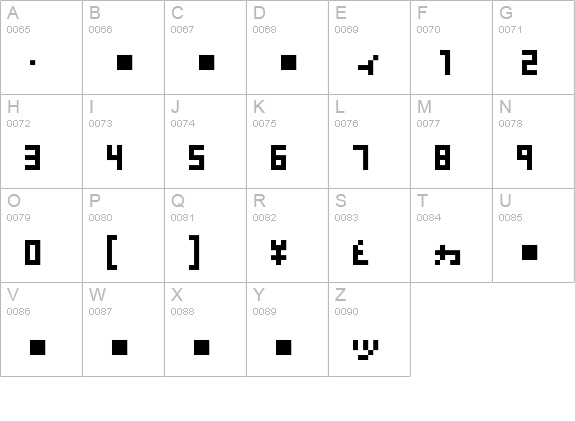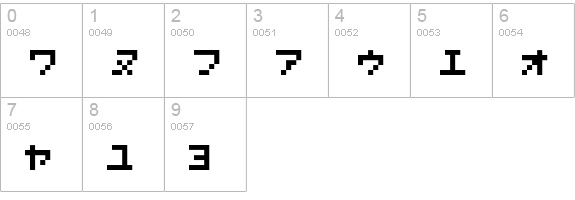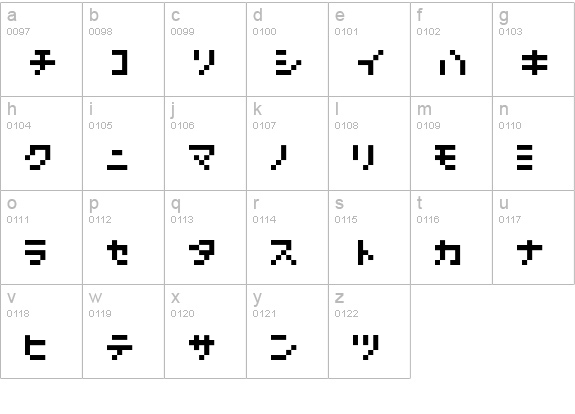
Nanoscopics-Katakana Font Details
Nanoscopics-Katakana font is a stunning display typeface that beautifully combines traditional Japanese Katakana characters with a modern, sleek design. Each character is intricately crafted with a nano-inspired aesthetic, creating a unique and futuristic appearance that is perfect for adding a touch of sophistication to your designs. This font is ideal for use in branding, headlines, posters, and any project where you want to make a bold statement. The Nanoscopics-Katakana font is versatile and can be used in both digital and print media, adding a touch of elegance and innovation to your work. Best of all, this font is available for free download at FontsMarket.com, making it easily accessible for all your design needs. Don't miss out on the opportunity to enhance your projects with the cutting-edge style of Nanoscopics-Katakana font. Download it today and elevate your designs to the next level!